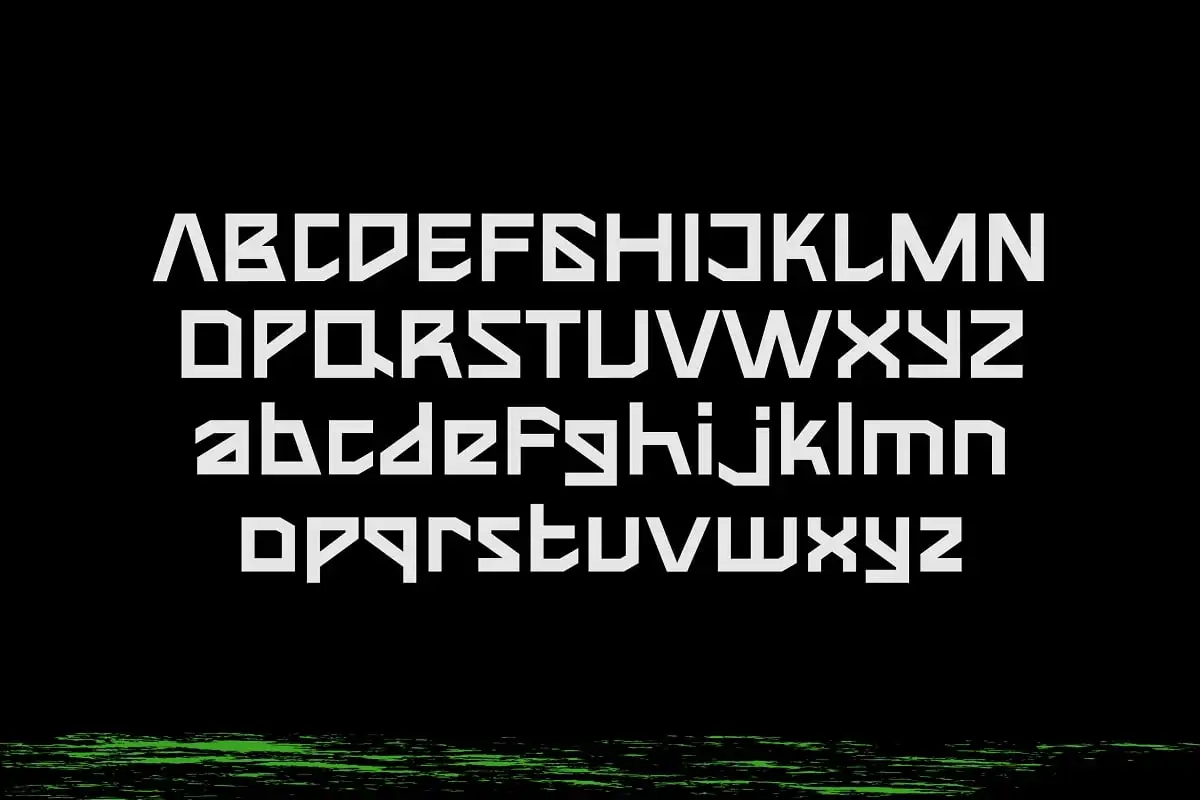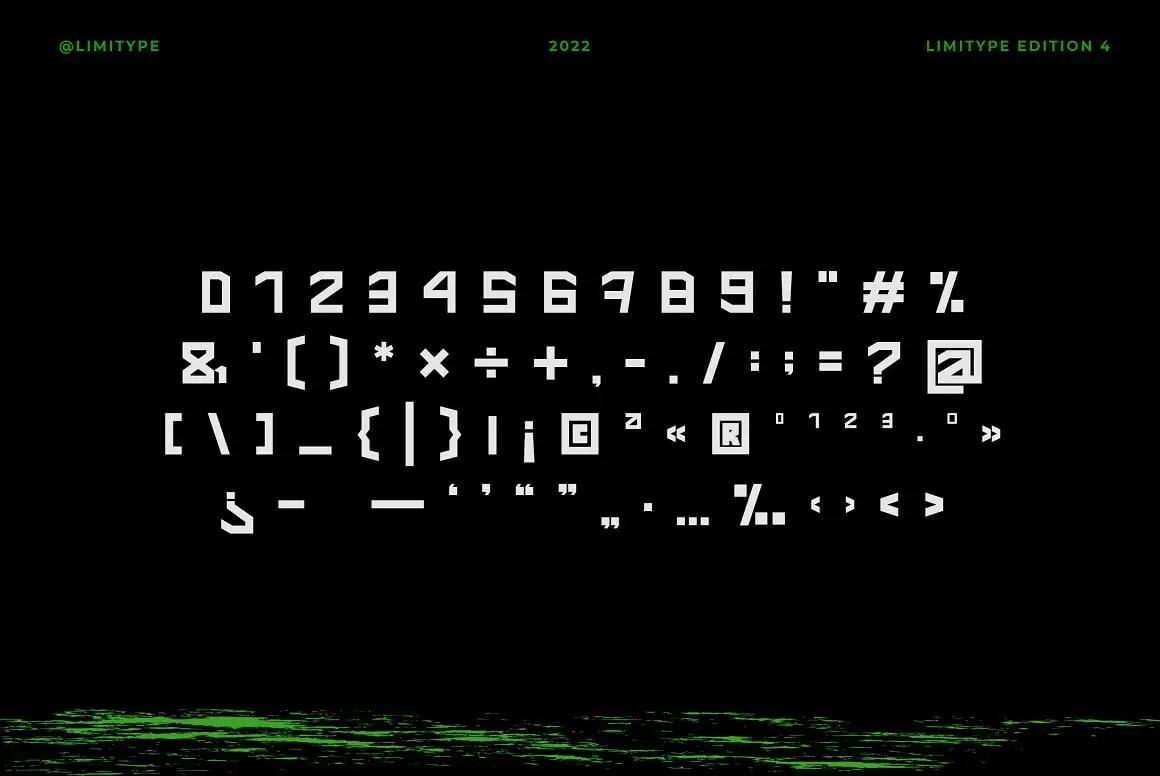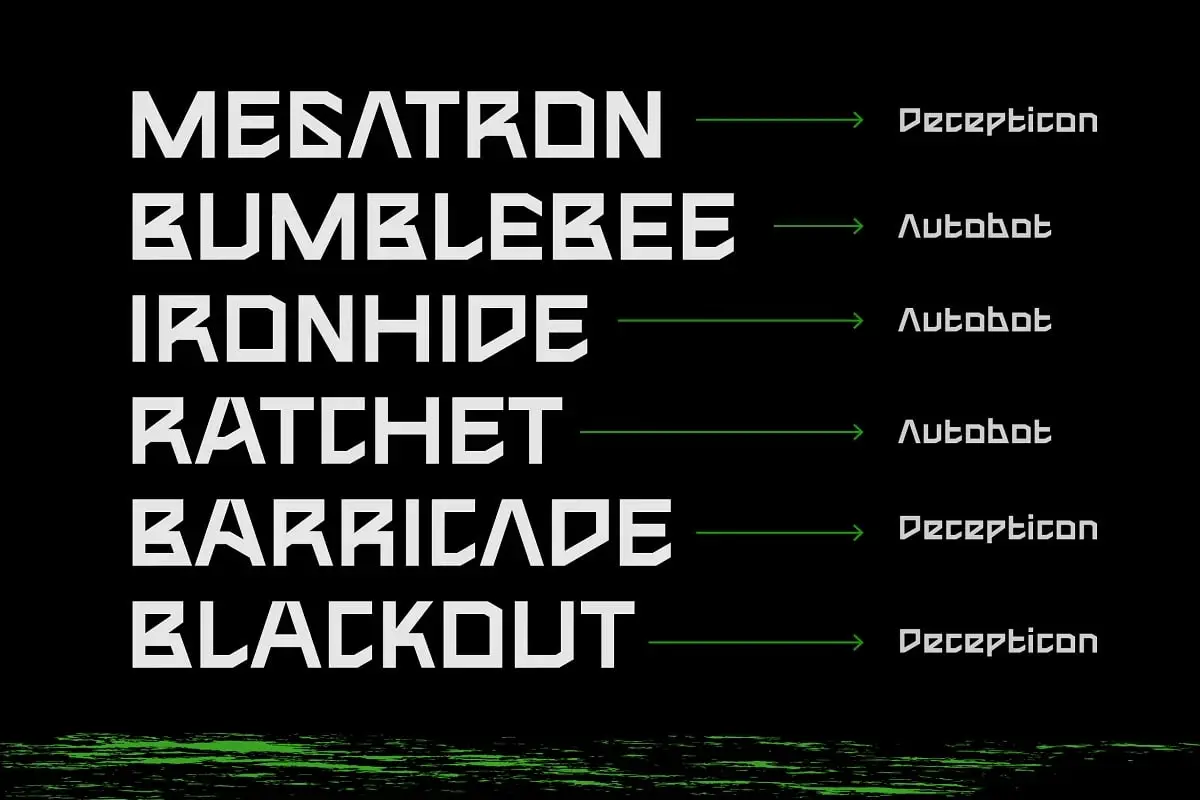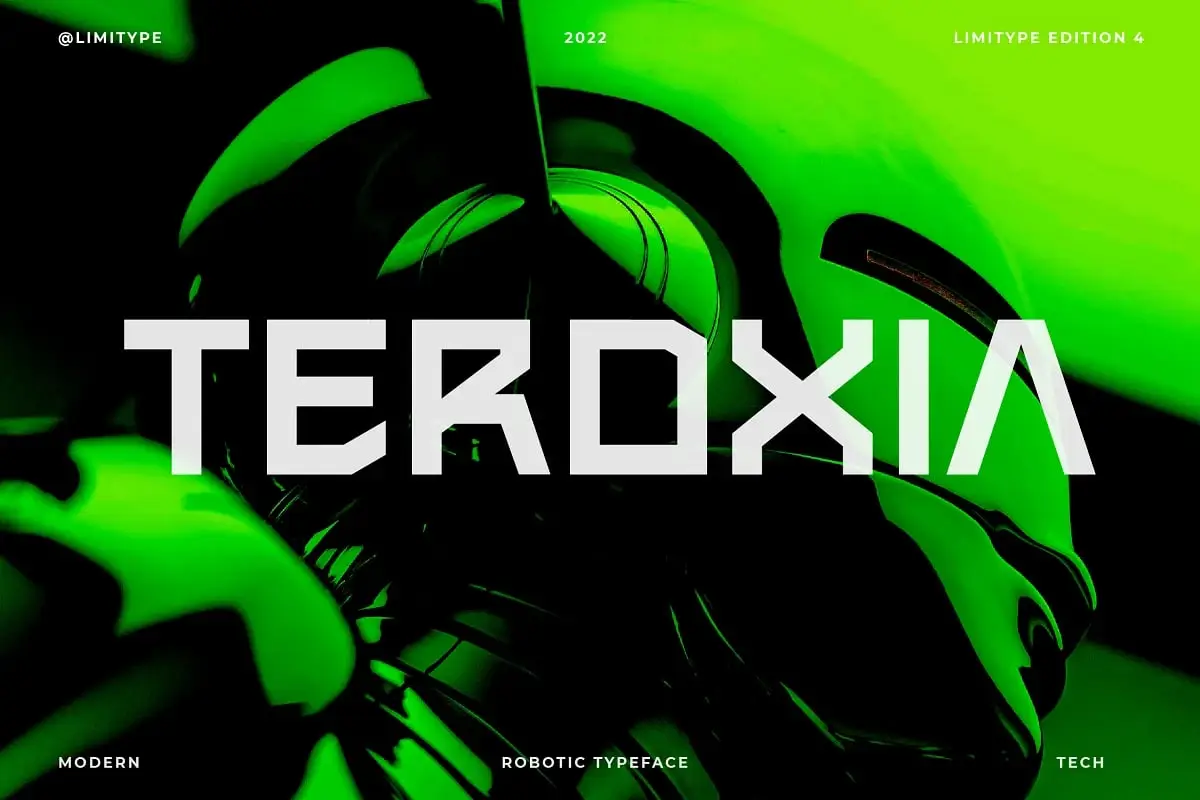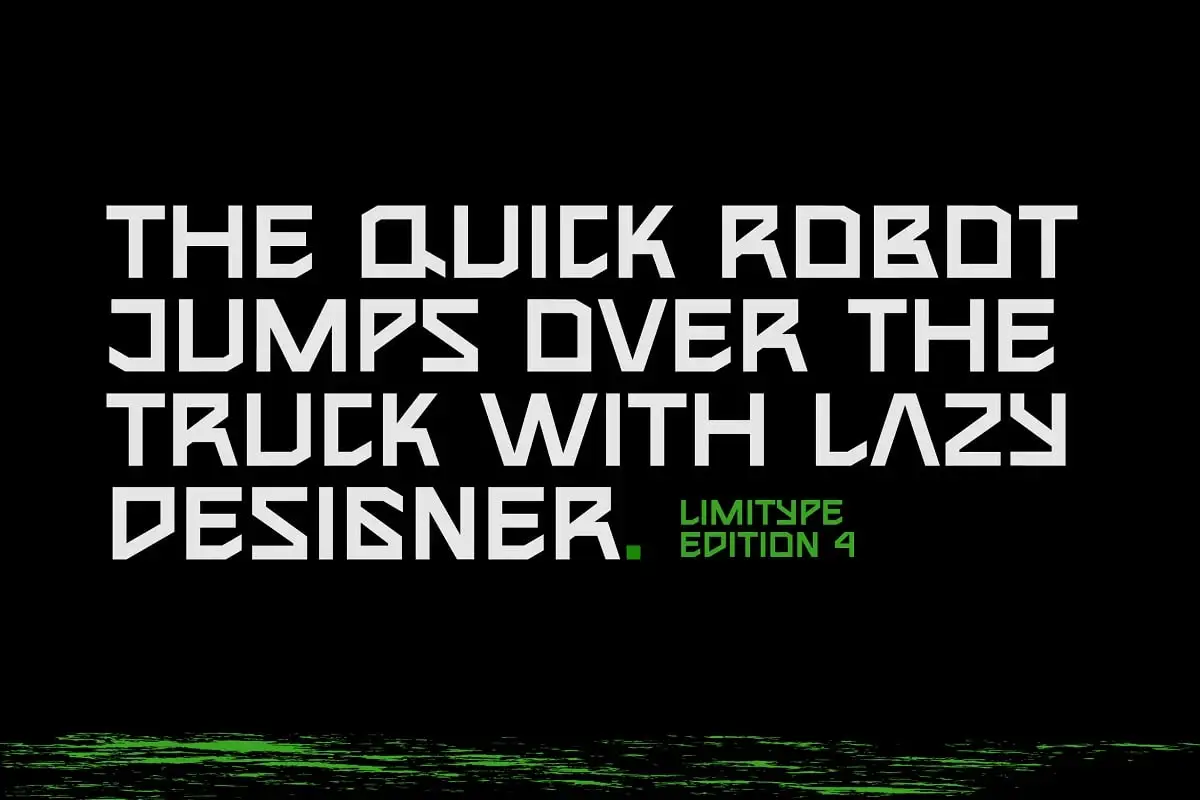
Teroxia-Futuristic Robotic Font
Introducing the Teroxia-Futuristic Robotic Font, a cutting-edge typeface designed to bring a modern and technological feel to your projects. This font features sleek lines and geometric shapes, making it ideal for branding, logos, web design, and print materials.
• Style: Futuristic, Robotic
• Perfect for tech-related projects, sci-fi themes, and innovative branding.